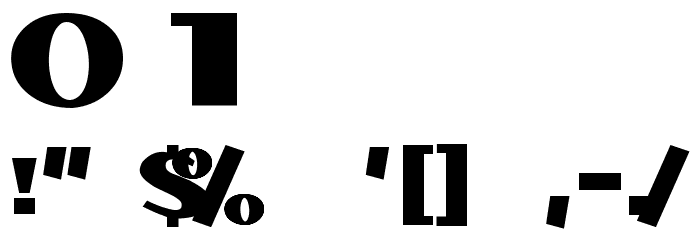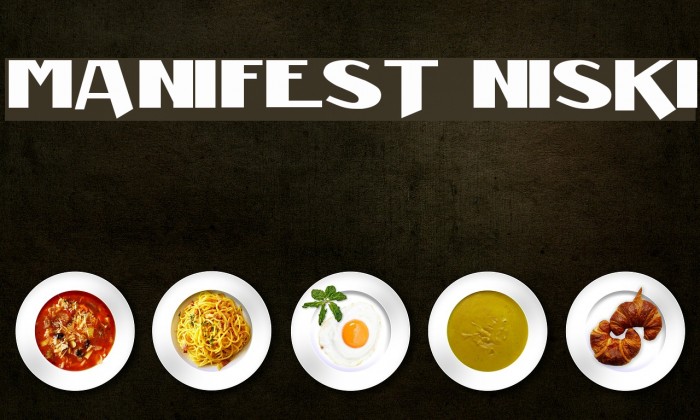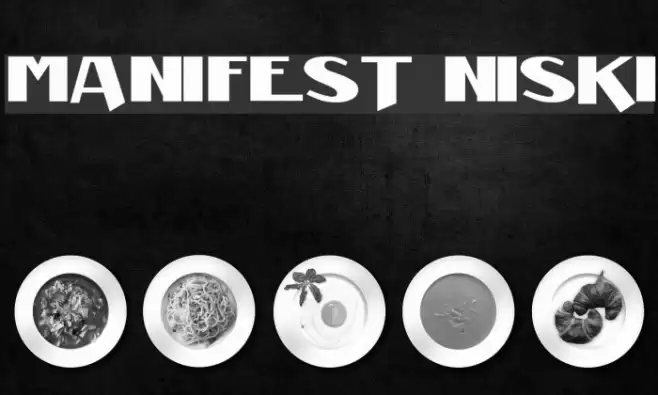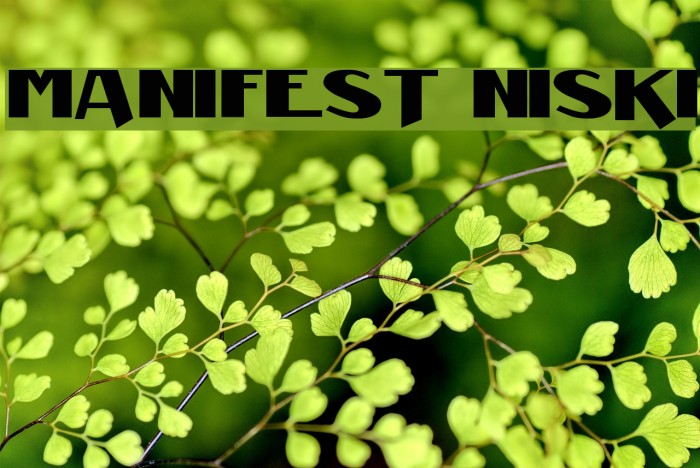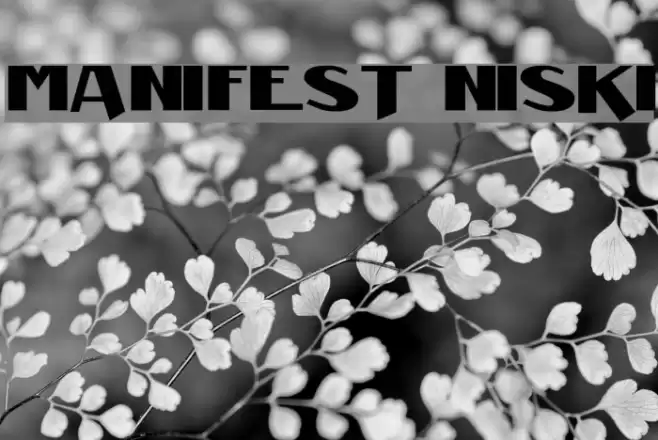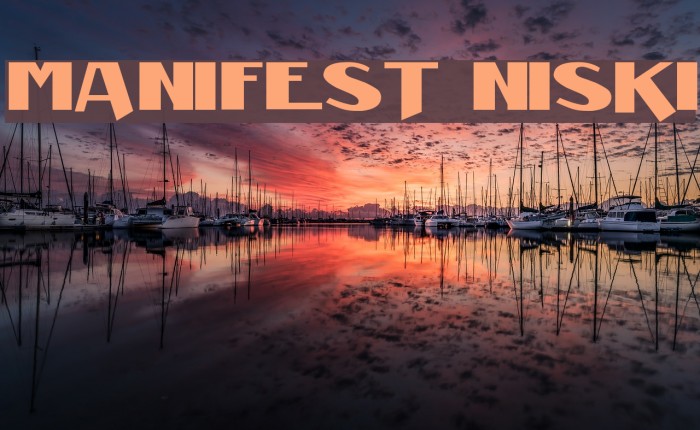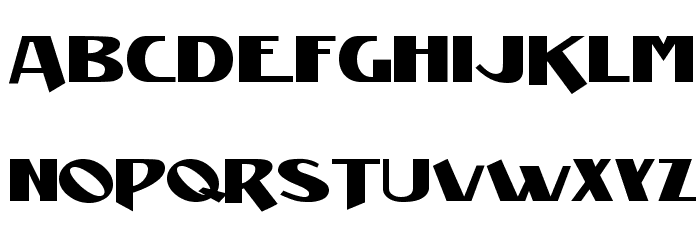
Manifest Niski Font
Manifest Niski Description
This font features a bold and striking design with a unique geometric flair. The characters exhibit a strong, angular presence with sharp edges and a slightly condensed form. The uppercase letters are particularly distinctive, with some characters incorporating subtle curves that add a dynamic touch to the overall appearance. The numbers and special characters maintain the bold aesthetic, ensuring consistency across all glyphs. This font's high contrast and dramatic style make it an excellent choice for projects that require a strong visual impact.
| Proposed Projects | Ideal for posters, logos, branding, and headlines where a strong, impactful font is needed. |